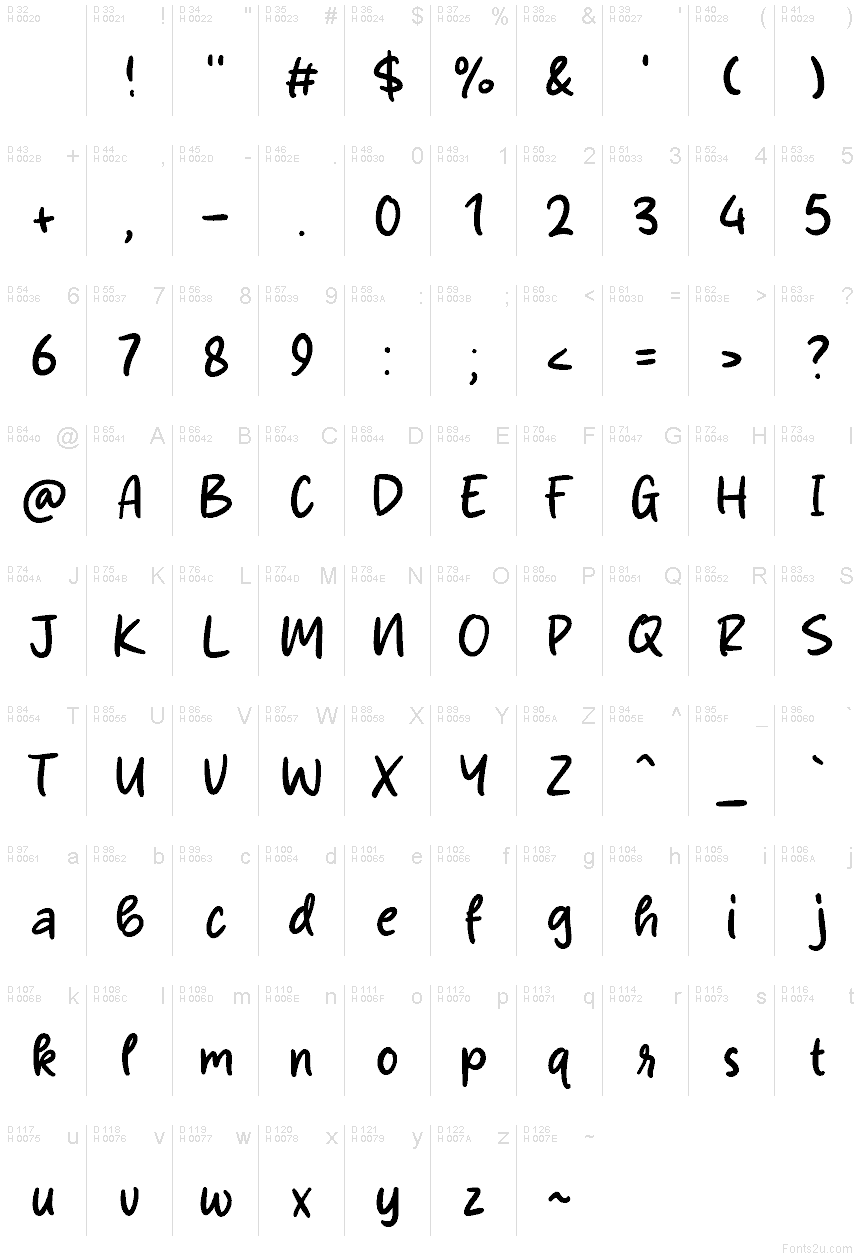
Strike Humble
Strike Humble font by Origin Type is a free handwritten font that captures the feel of quick, confident marker strokes without losing clarity. The letters flow with an easy, rounded rhythm—thick, inky curves that feel casual and human, yet stay neatly spaced and highly readable at smaller sizes. It has just enough bounce and looseness to feel personal, without sliding into messy or chaotic.
Using Strike Humble, you can bring an approachable, hand-done touch to social posts, quote graphics, packaging, greeting cards, YouTube thumbnails, and casual branding. This free font works beautifully as a headline paired with a clean sans serif for body text, letting the friendly script grab attention while your supporting copy stays simple and clear.